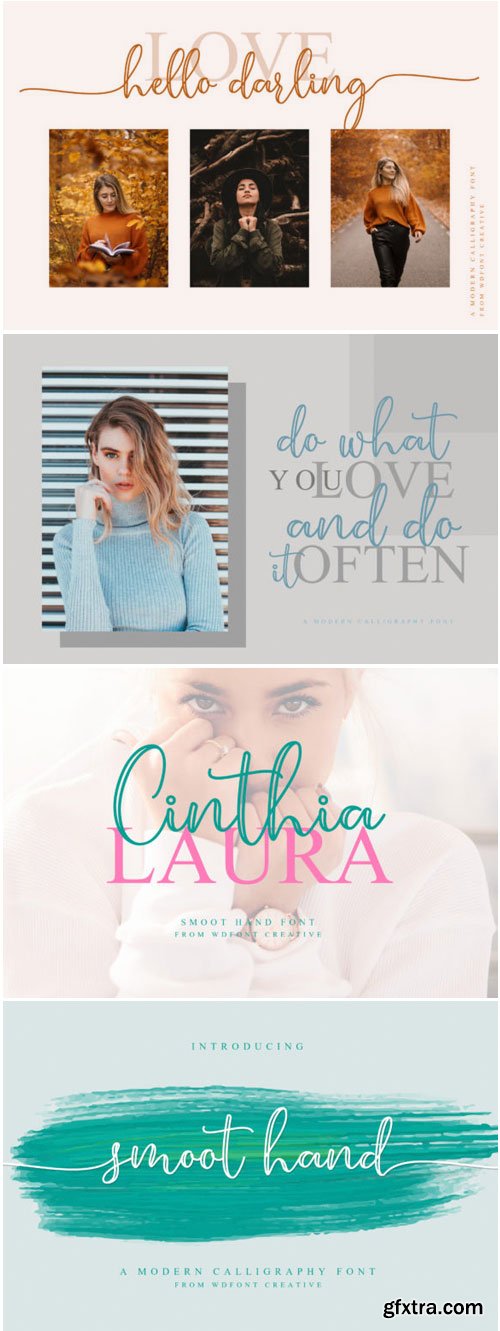
Smoot Hand Font
Smoot Hand is a simple, yet striking handwritten font with a light and fresh feel. Use it for any design project that needs a personal touch.